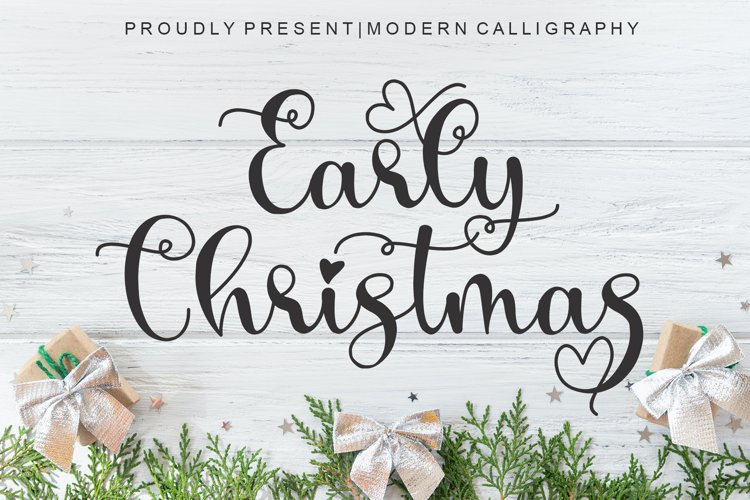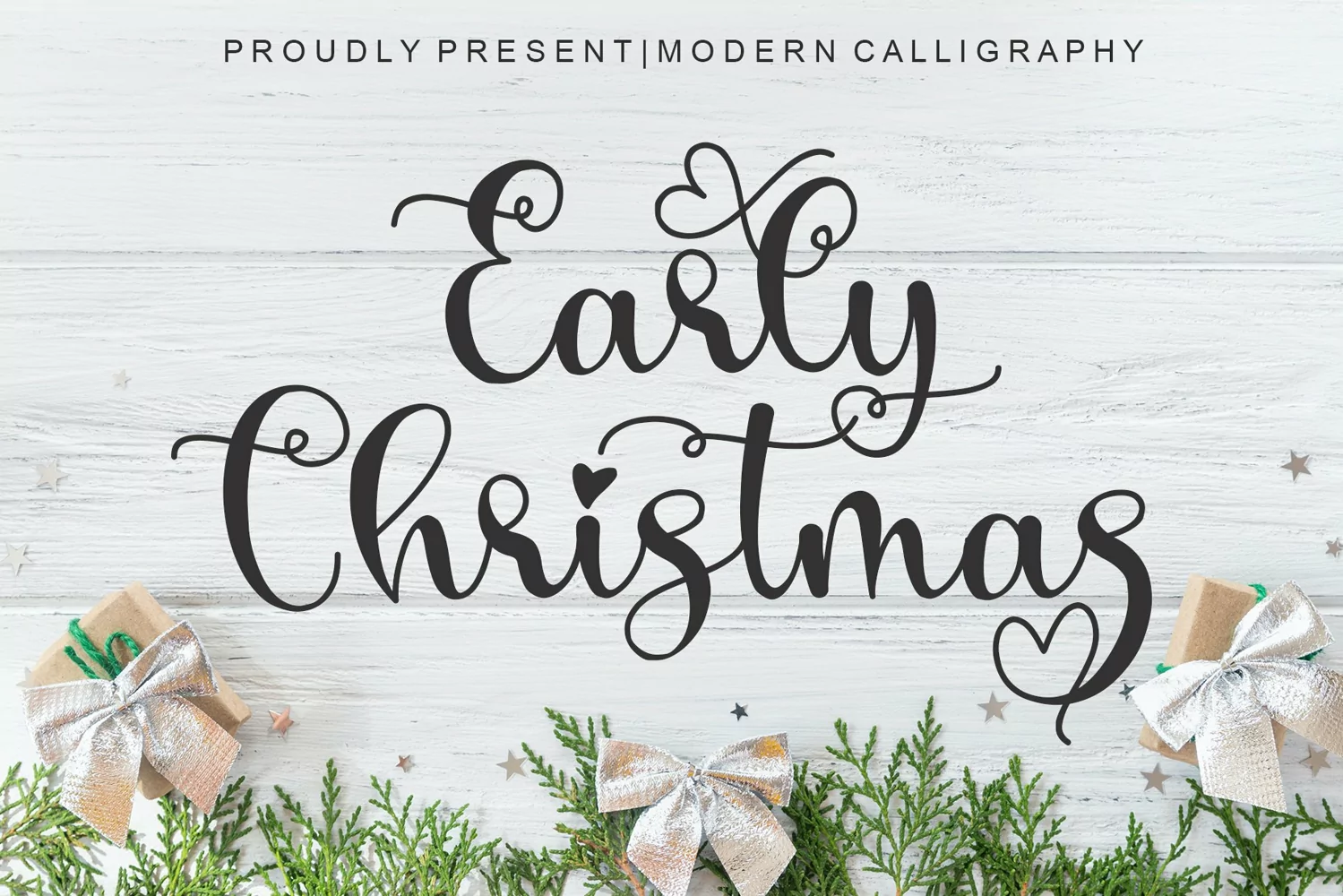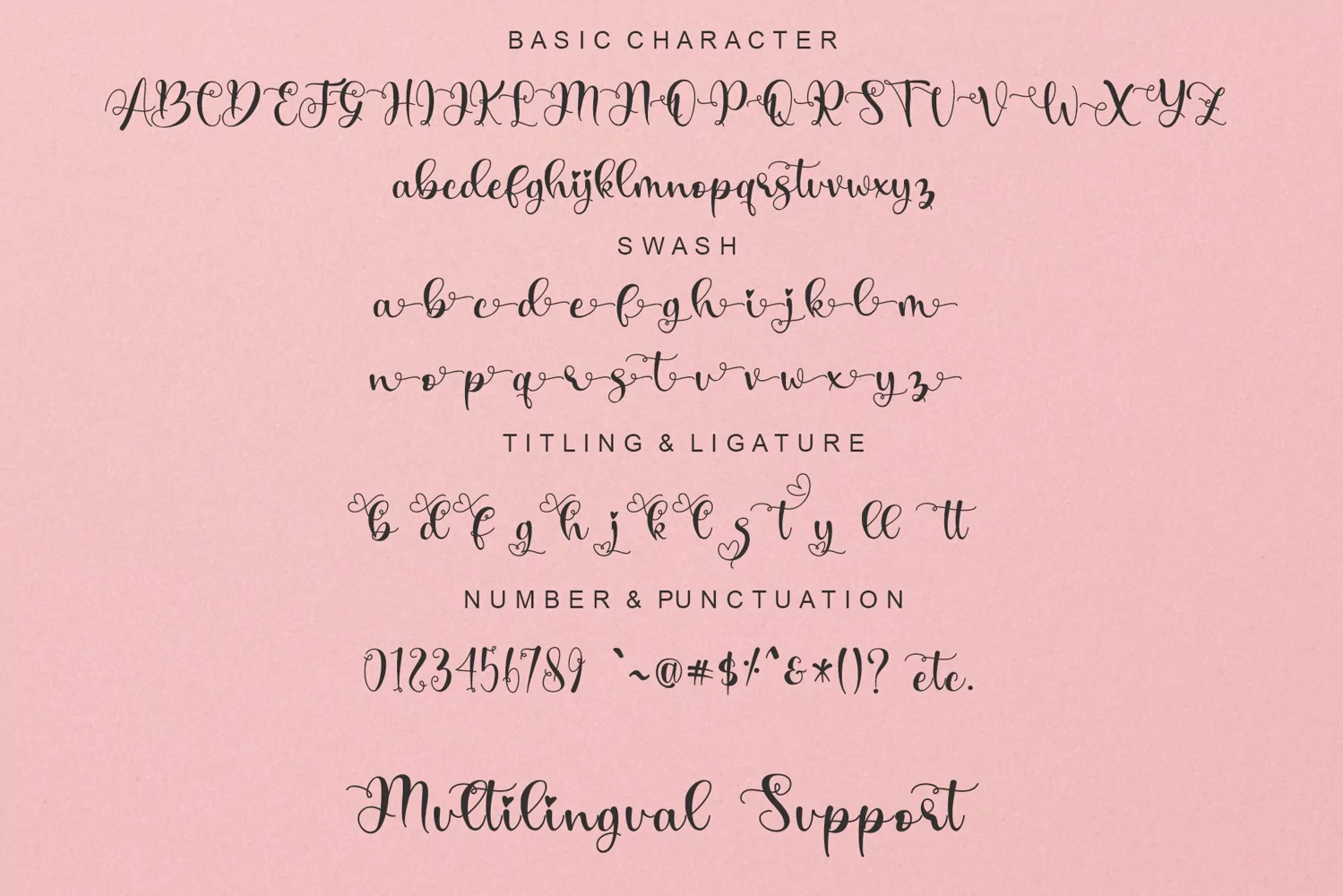
Beautiful Handwritten
Early Christmas is a Script Style font by Letterafa Studio. It has flowing letters that will give your designs a unique and sweet look. Early Christmas font is perfect; logos, greeting cards, a package design, a brand identity, craft design, any DIY project, book title, wedding invitation, packaging, and more.